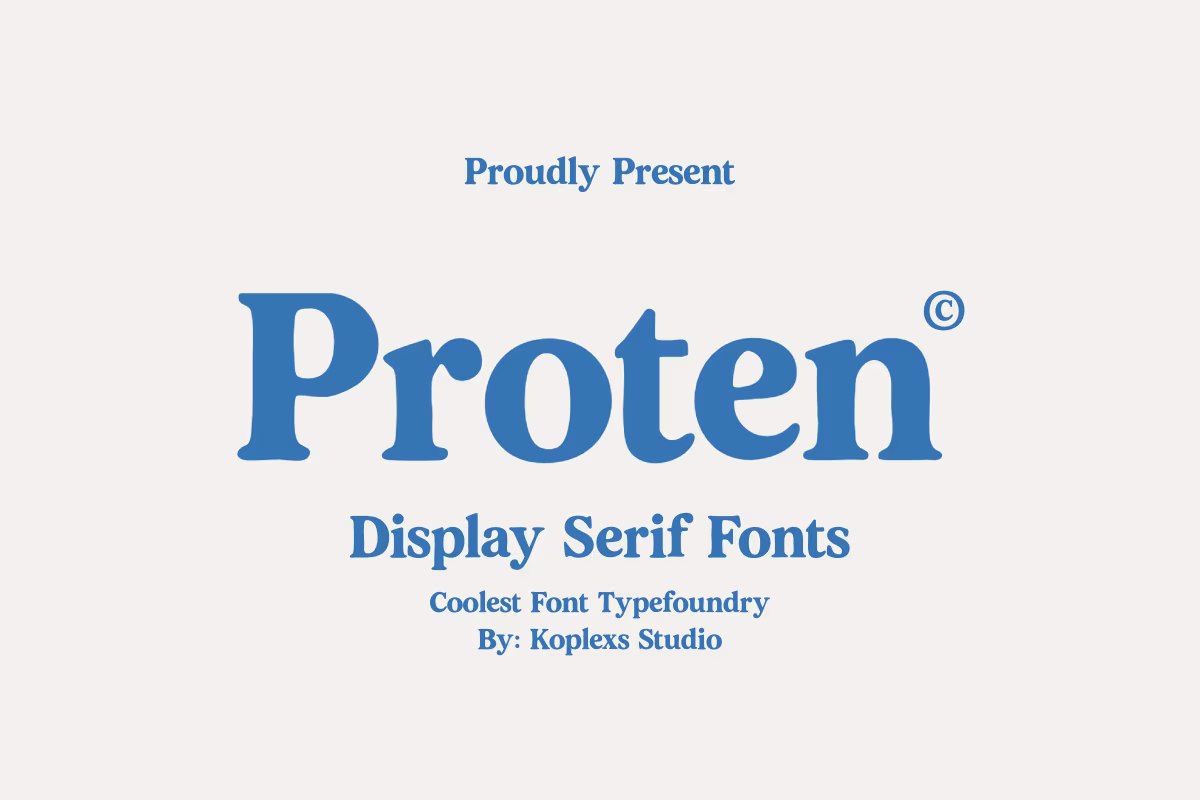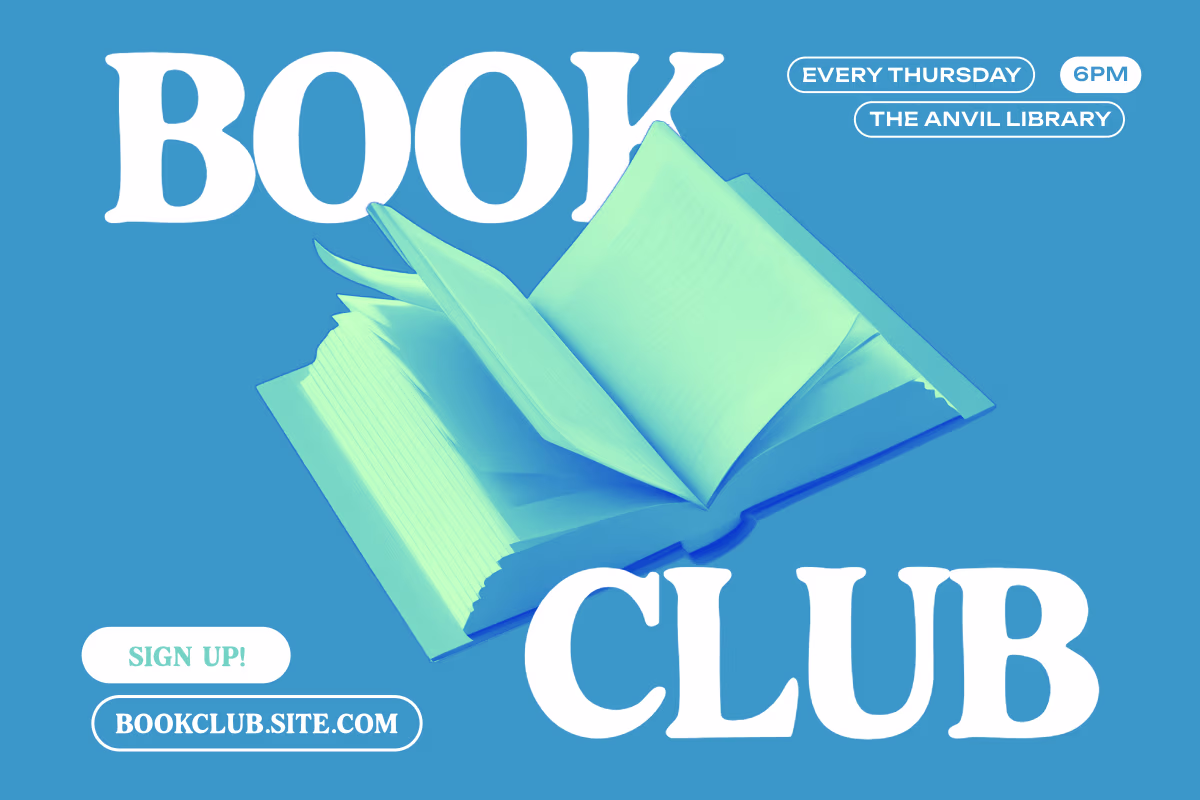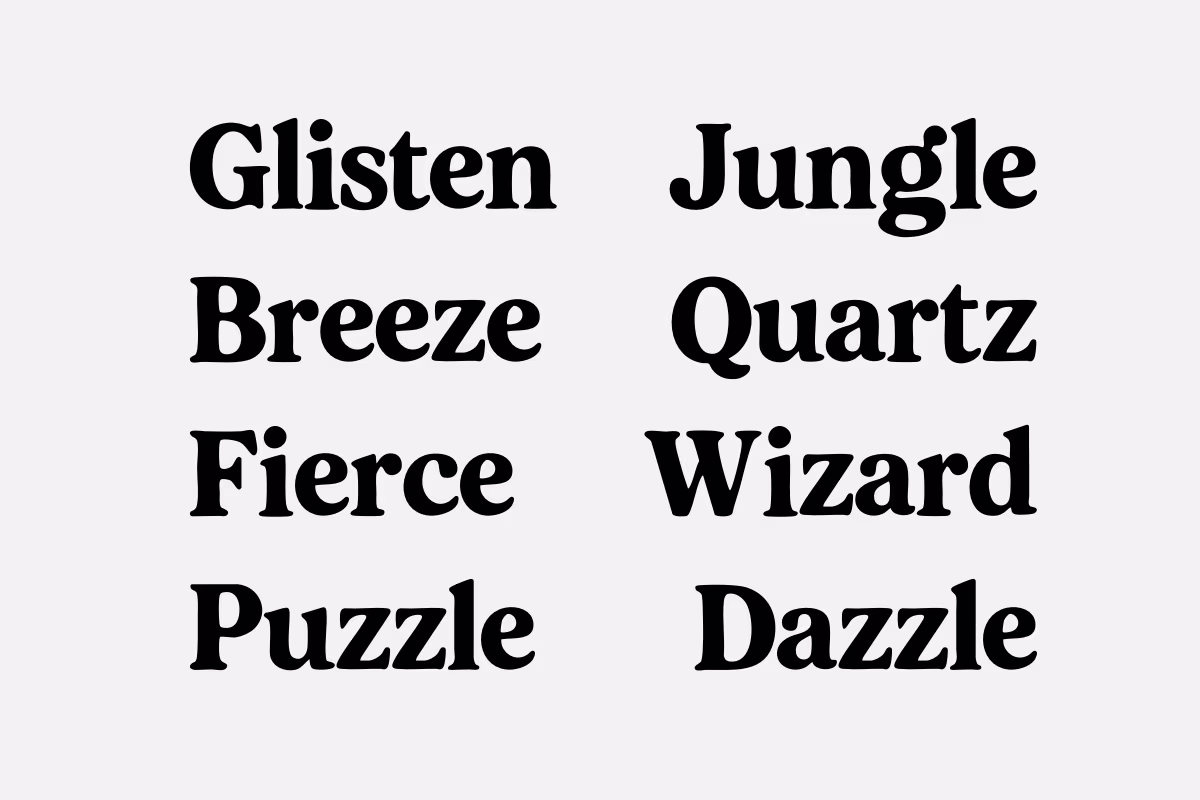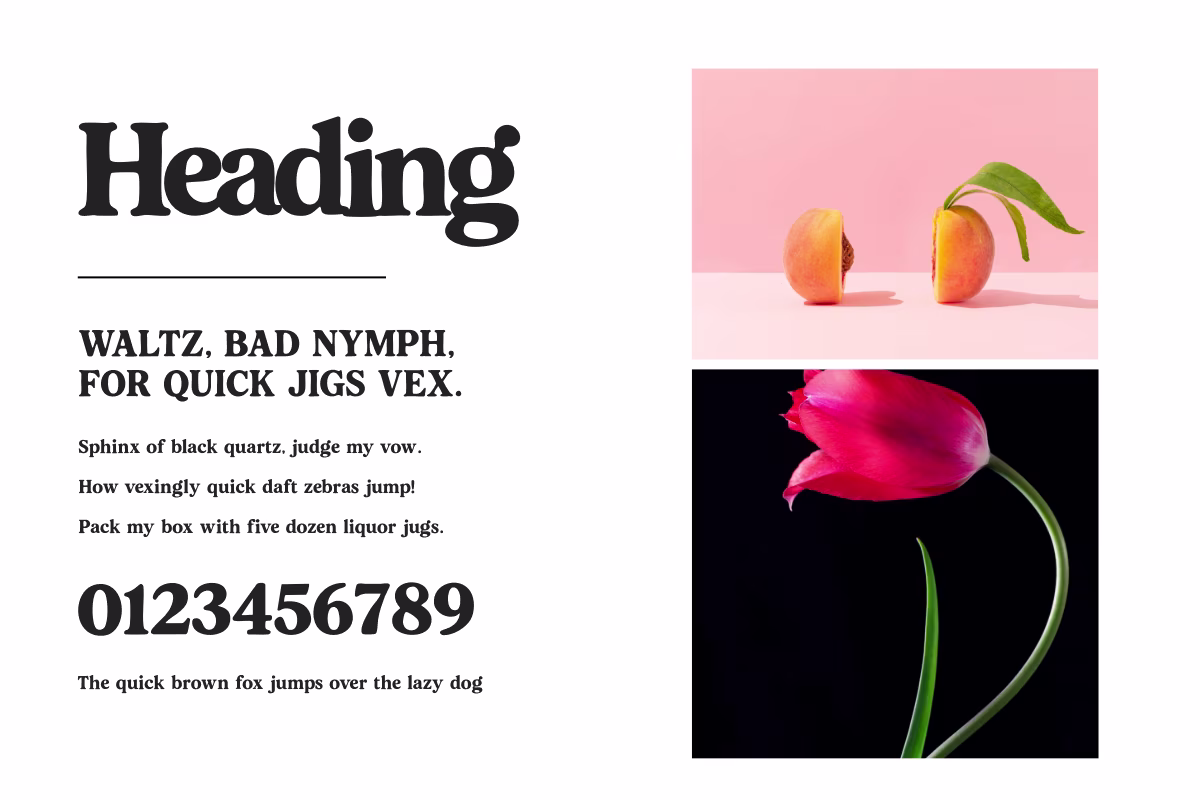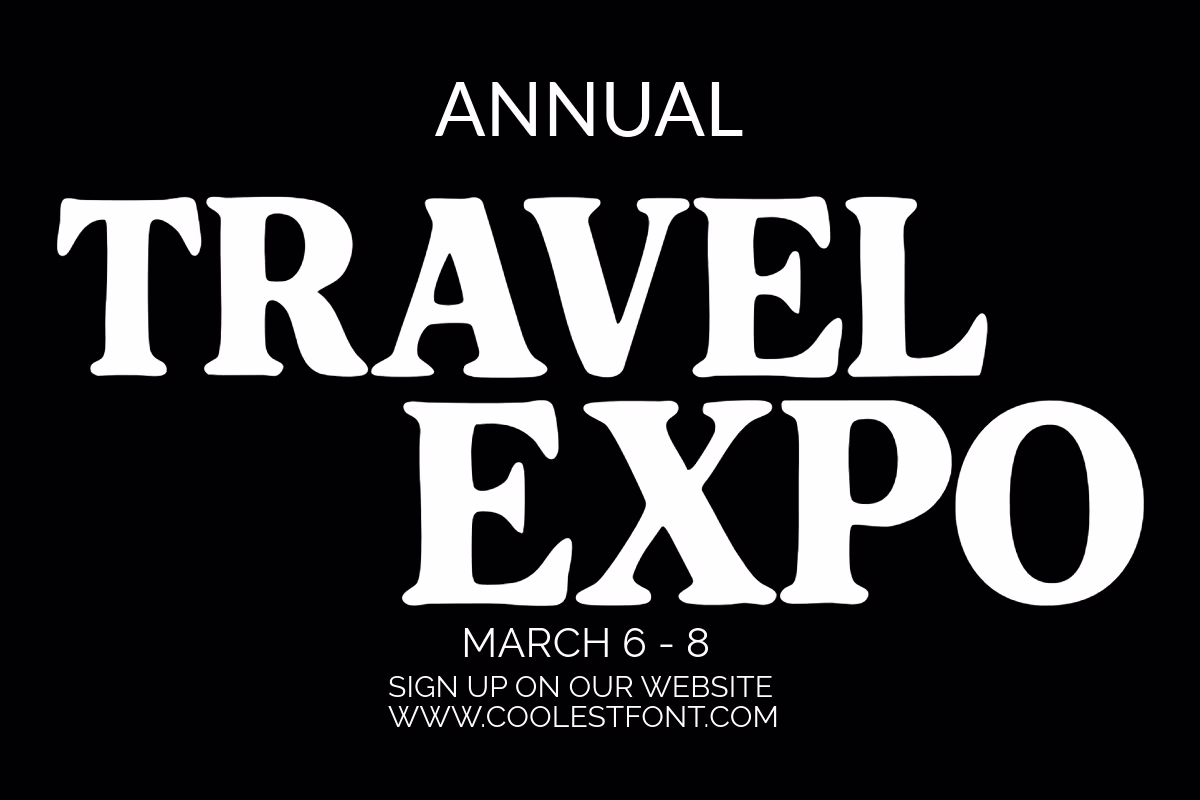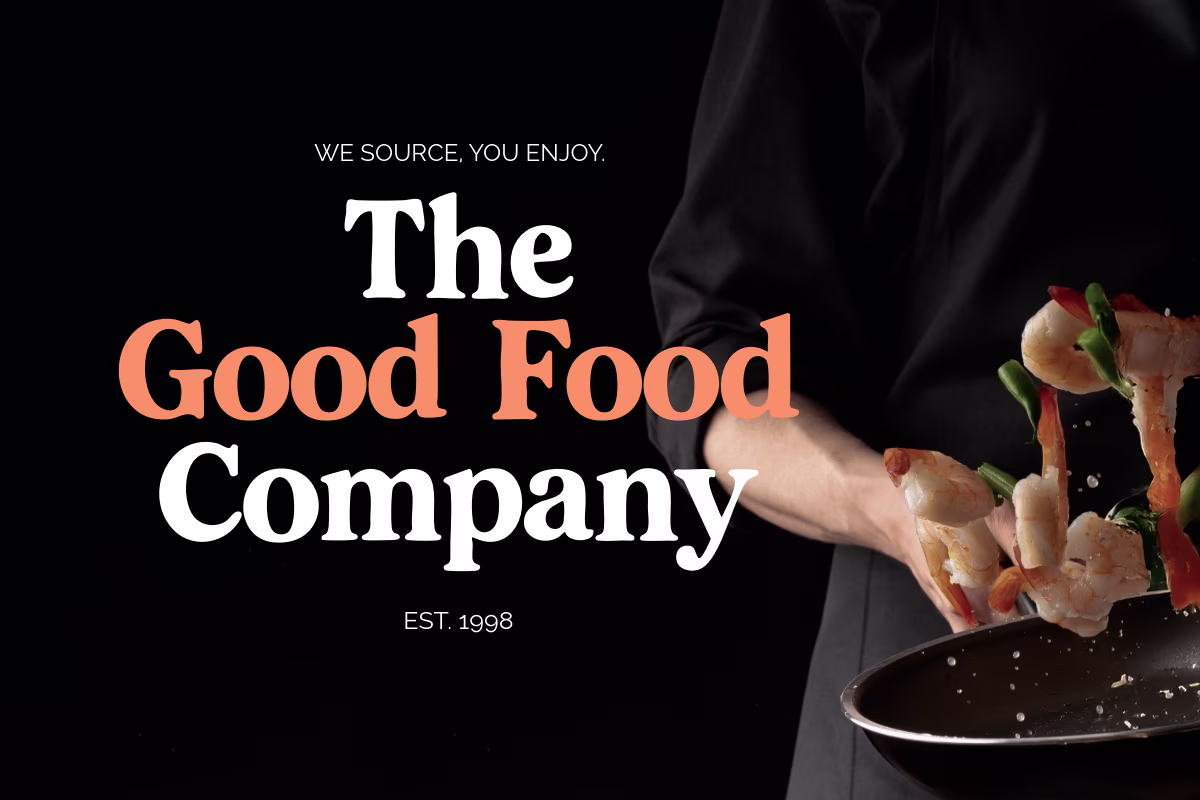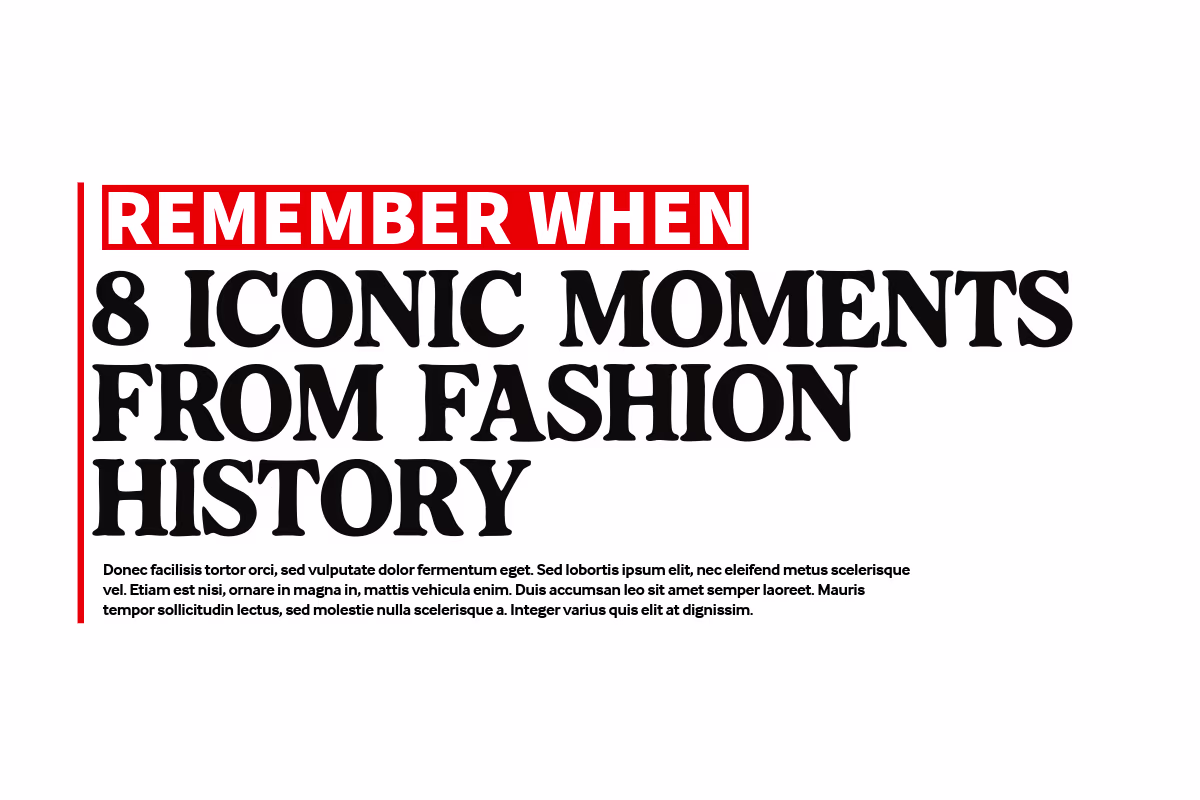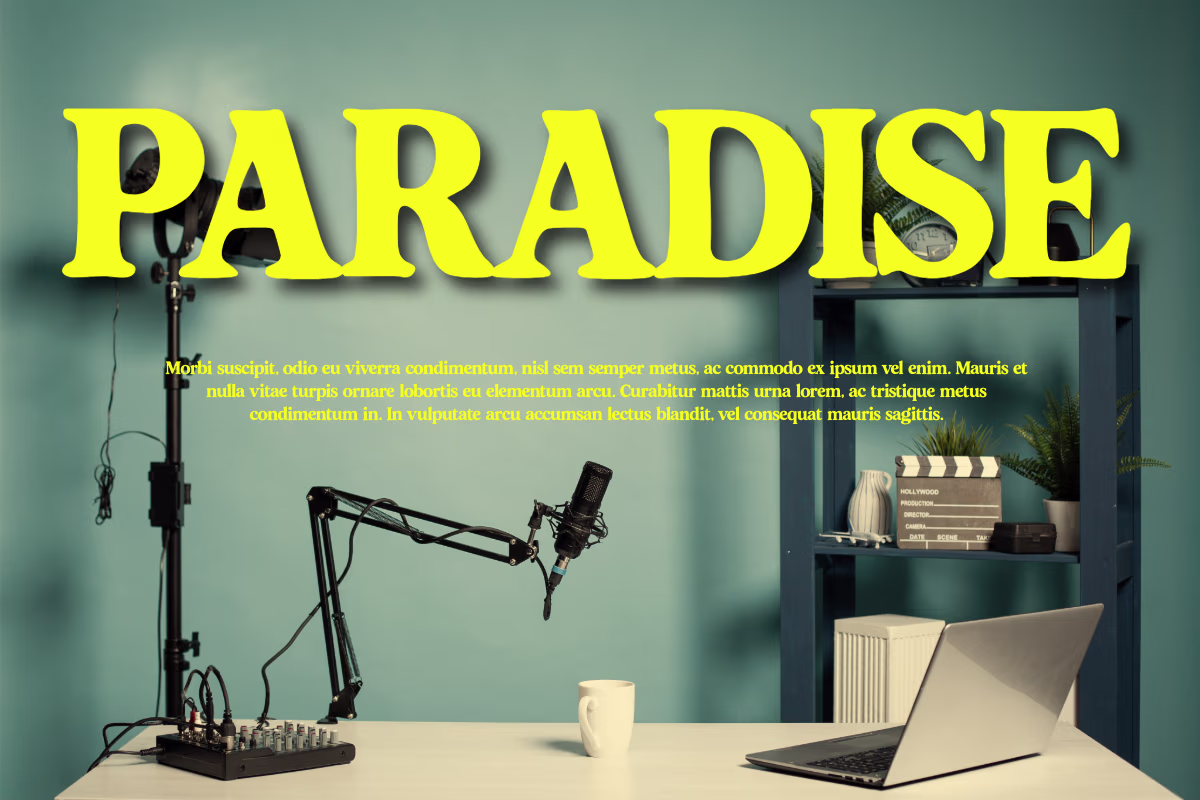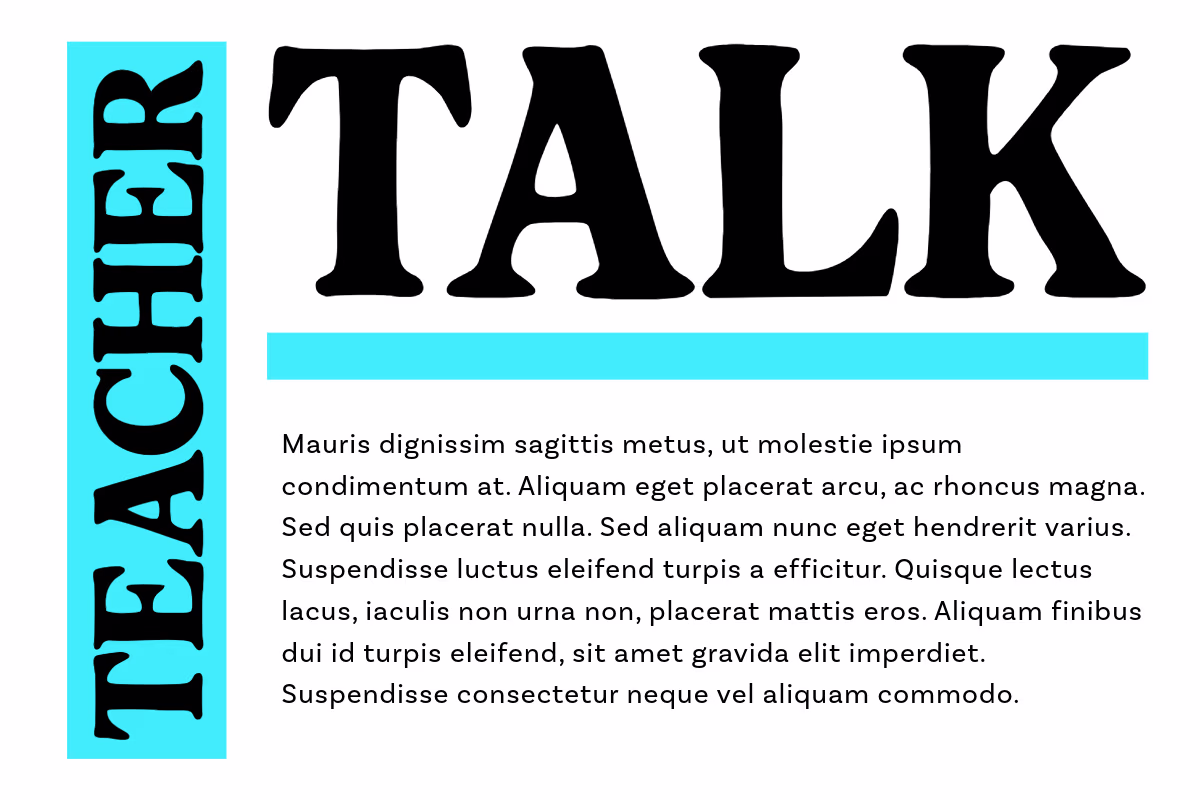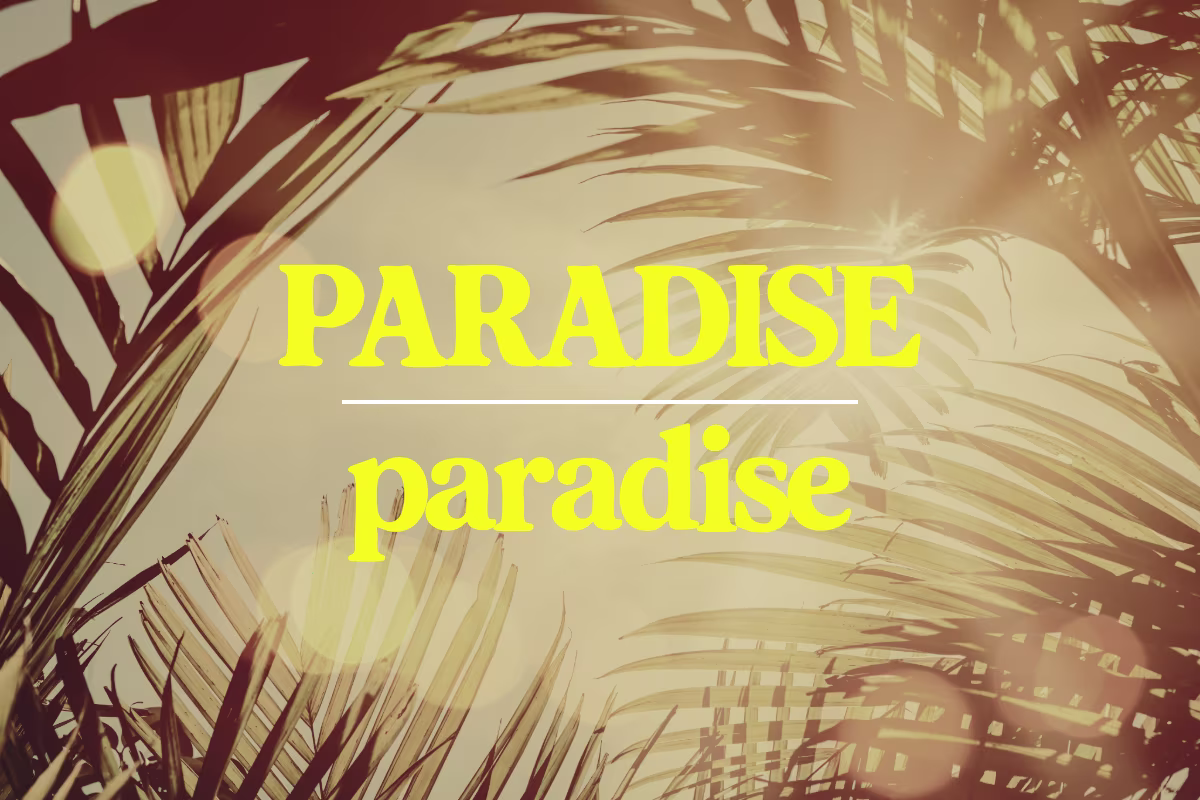
Elegant? Yes. Bold? Absolutely. Boring? Never.
Say hello to Proten, a display serif font that knows how to steal the spotlight—without even trying too hard. With confident curves, dramatic contrast, and classy vibes all around, Proten is here to make your design projects look like they just stepped out of a fashion magazine (or a very fancy Instagram feed).
This font blends classic elegance with a modern edge, making it the perfect choice for anyone who wants their work to look expensive, intentional, and totally unforgettable.
- Uppercase & lowercase letters (full of personality)
- Numbers & punctuation (because every detail matters)
- Multilingual support (bonjour, hola, hallo—you name it!)
- Branding & logos
- Editorial design (magazines, zines, blog headers)
- Luxury product packaging
- Wedding invitations & event stationery
- Social media posts with style
- Posters that make people stop scrolling
Let’s be real—Proten isn’t just another serif font. It’s a statement. A vibe. That friend who shows up overdressed and still nails it every time. Whether you’re designing for a high-end client, working on a fashion lookbook, or just want your personal project to feel a little more “wow,” Proten’s got you.
Proten is bold but graceful. Stylish but never snobby. It’s that perfect balance between classic and cool—ideal for creatives who want to leave a mark (a gorgeous one, at that).